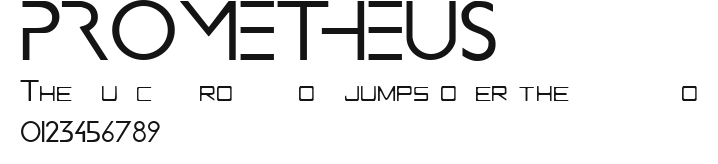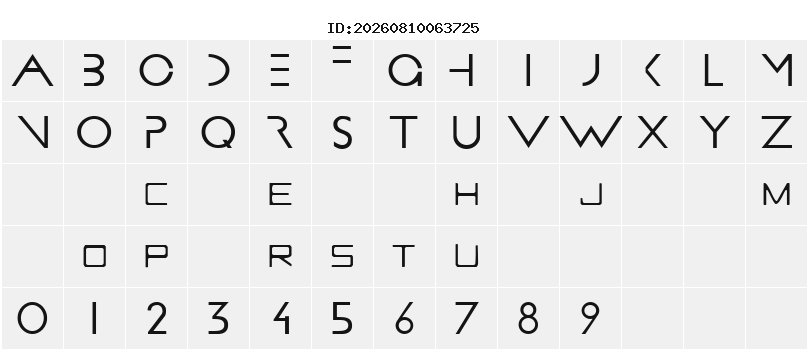
PROMETHEUS Preview
• Font Name: PROMETHEUS
• Full Font Name: PROMETHEUS
• Designer: SpideRaY
About PROMETHEUS.ttf
PROMETHEUS.ttf is a modern, elegant sans-serif font designed for ultimate readability and visual harmony. Perfect for branding, headlines, web design, and print materials.